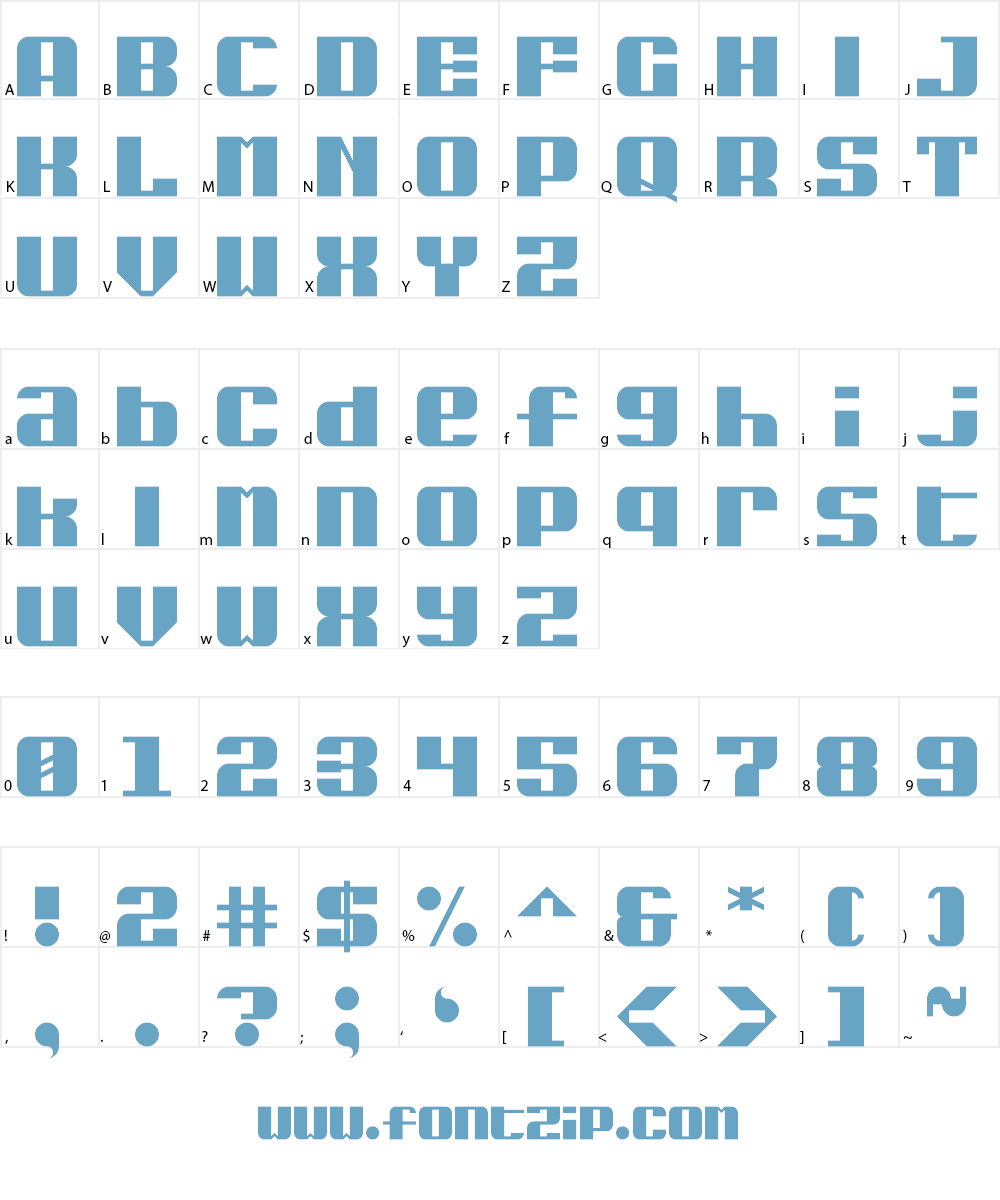
A slightly quirky art-deco design I originally created in 2013 for my game "Seven Candles", particularly the text used on documents and signs at the Lower Netazecan Embassy. "Embassy L" is a play on "Imbecile".
This supports Danish, Dutch, English, Finnish, French, German, Hungarian, Icelandic, Italian, Norwegian, Portuguese, Spanish, and Swedish!